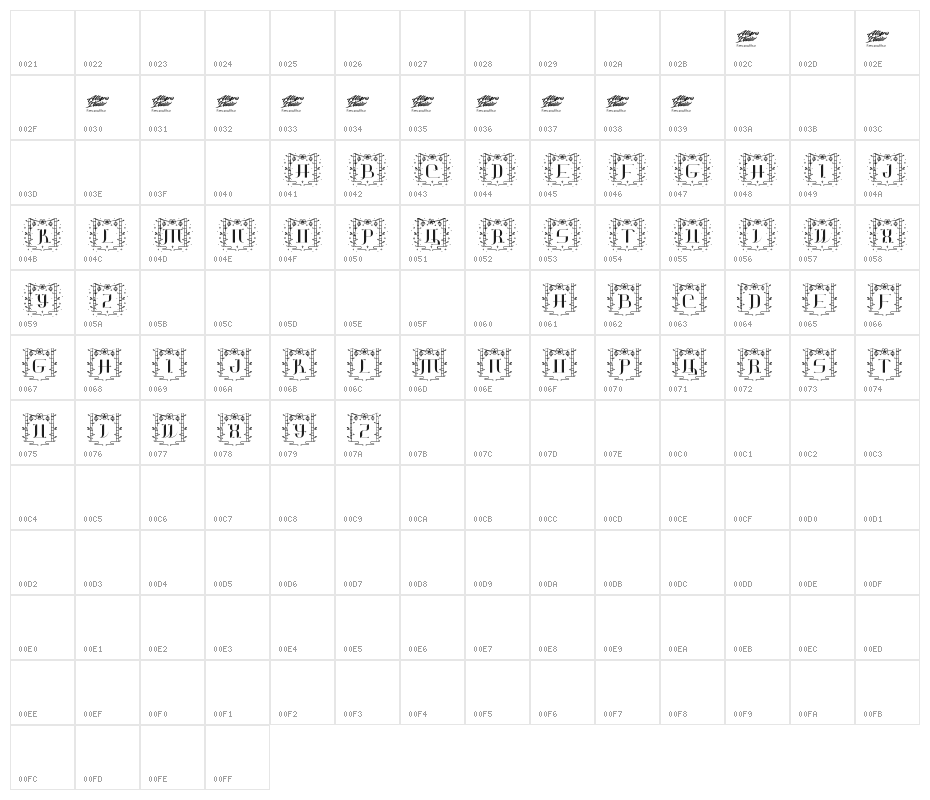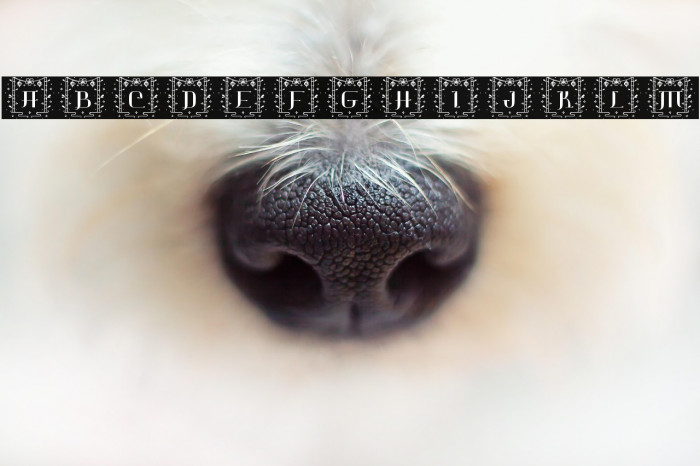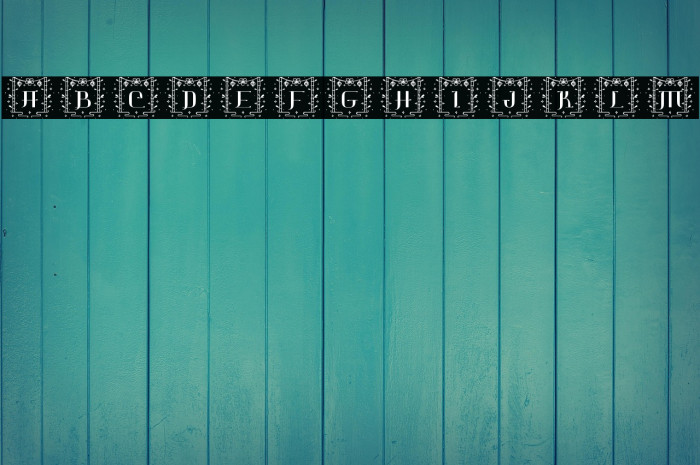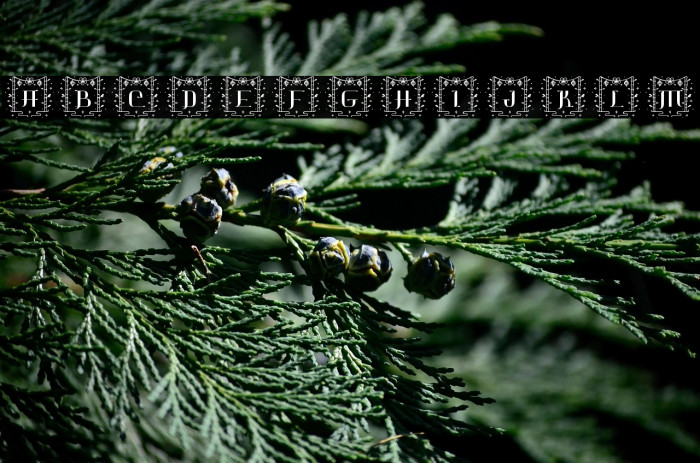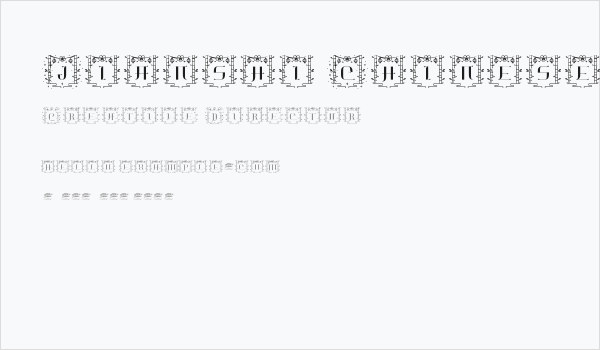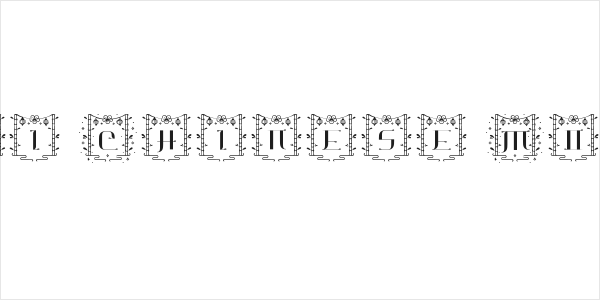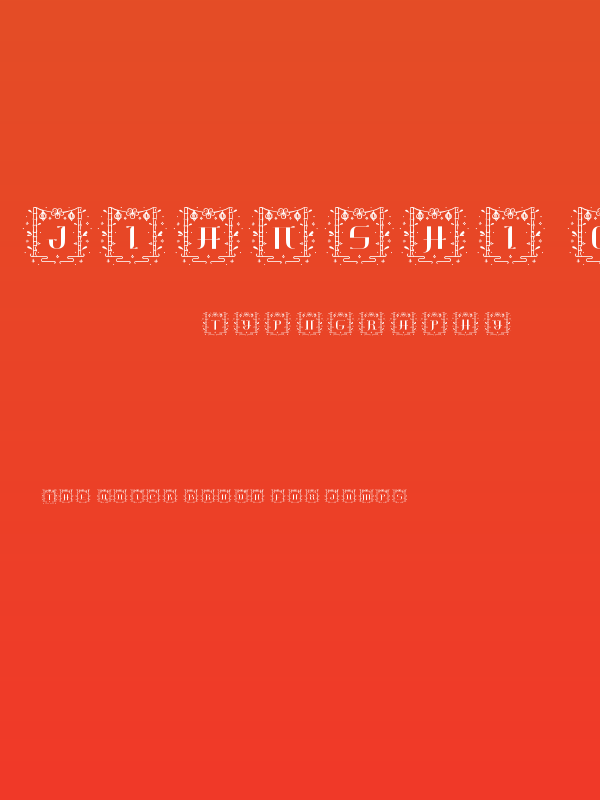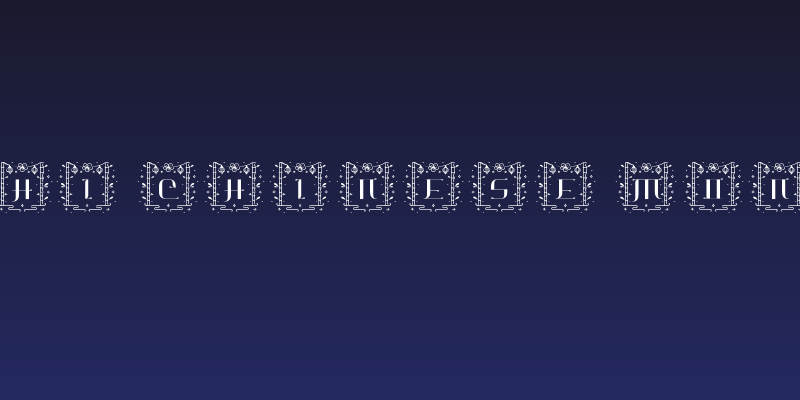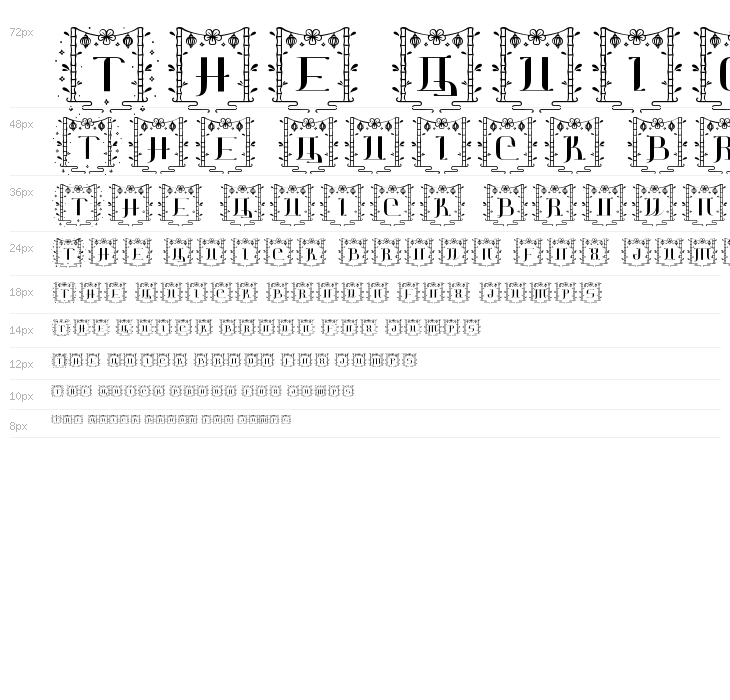
Jianshi Chinese Monogram Font
Jianshi Chinese Monogram Description
This font features a decorative and intricate design, with each character enclosed in a square frame adorned with ornate patterns. The letters are bold and capitalized, showcasing a unique blend of traditional and modern aesthetics. The intricate borders add a touch of elegance and sophistication, making it stand out as a decorative typeface. The style is reminiscent of monogram designs, often used for creating personalized and luxurious impressions.
| Use Case | Logos, Headlines, Decorative elements |
| Proposed Projects | Ideal for monograms, wedding invitations, luxury branding, and decorative projects. |